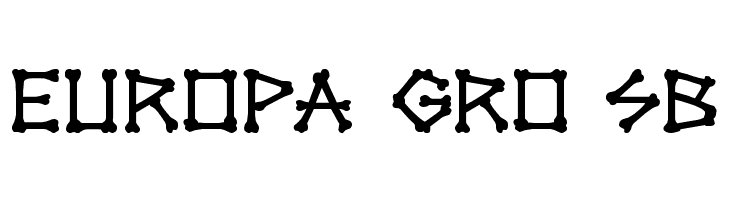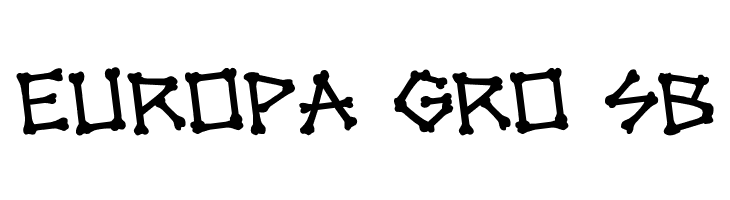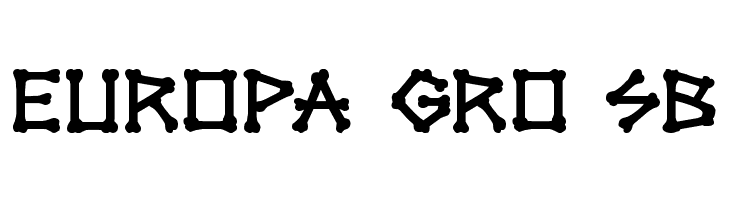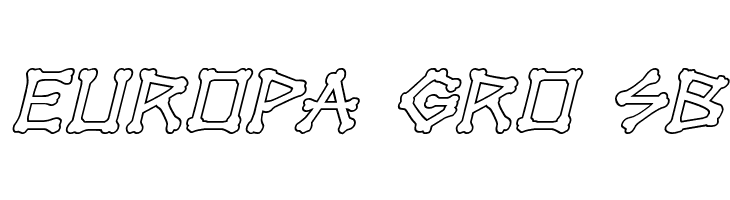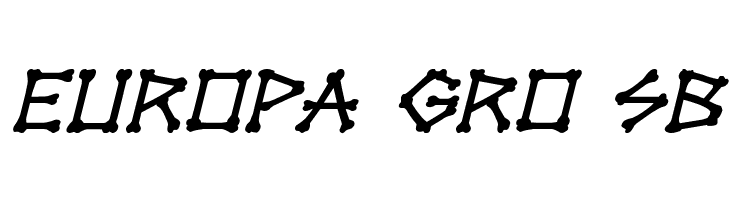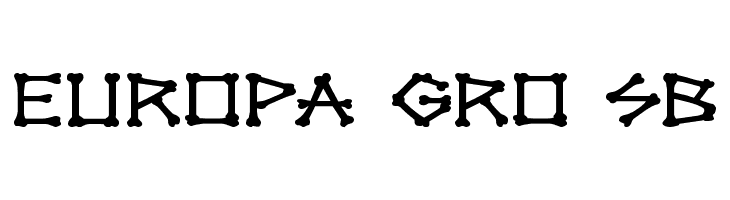
A bone-themed, condensed italic font with a playful, spooky style.
A playful, bone-themed font with a spooky aesthetic.
A bold, bone-themed decorative font with a condensed style.
A playful, bone-themed font perfect for spooky designs.
A playful, bone-themed font with a semi-italic style, perfect for spooky designs.
A bold, bone-themed font perfect for spooky designs.
An outline font with a bone-like, skeletal design, perfect for spooky themes.
A bold, bone-like font with an italicized, playful design.
A playful, bone-themed font with a bold and distinctive style.
A playful, bone-themed decorative font with an italic slant.